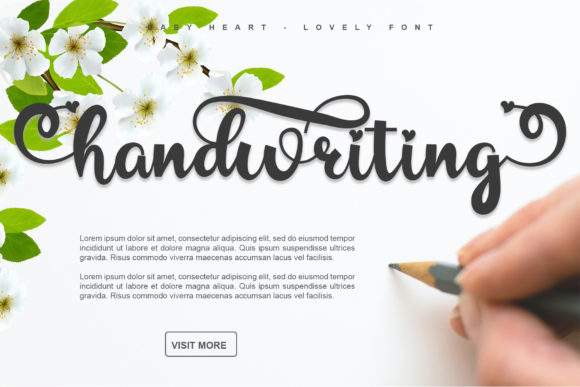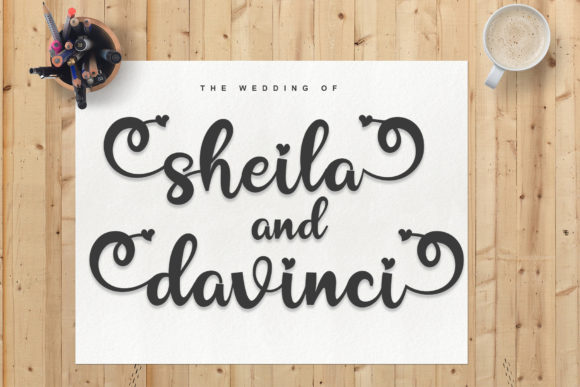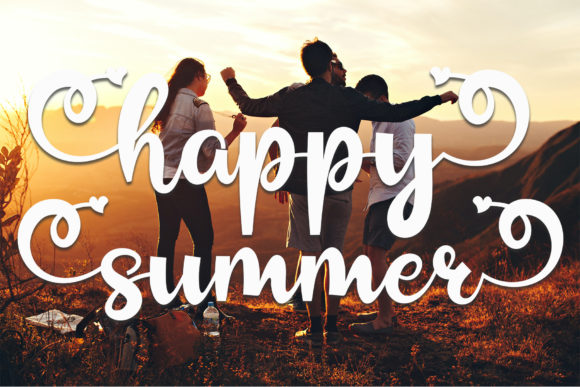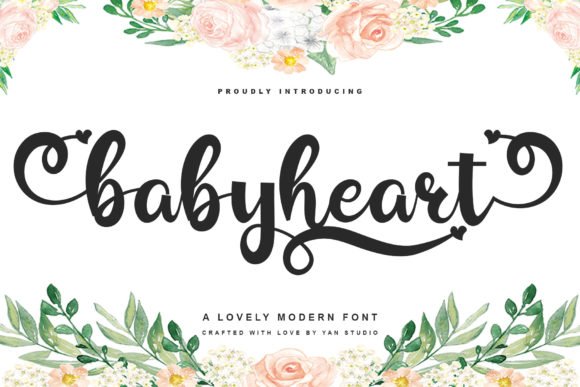
Introduction to Baby Heart Font
Baby Heart is a lovely and timeless handwritten font.
It is the best choice for creating eye catching logos, branding and quotes This font is PUA encoded which means you can access all glyphs and swashes with ease.
Key Features of Baby Heart Font